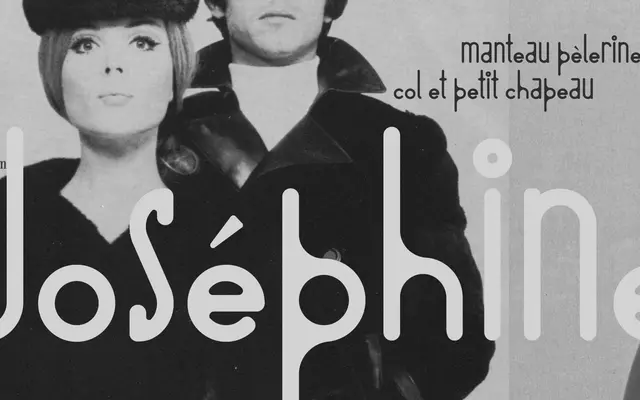
BD Barbeaux
Type Different · 2015
A condensed Art Nouveau display face aimed at fashion and lifestyle headlines, offered in a standard cut and a rounded Numérique variant.
BD Barbeaux is a condensed typeface with a chic, Art Nouveau character suited to fashion editorials and lifestyle publications. Two variants are available: the standard Regular and BD Barbeaux Numérique, which softens the design with rounded corners. Latin script support covers a broad range of Western European languages.
A condensed display typeface with Art Nouveau influences, designed for fashion headlines rather than extended text. The Numérique variant adds rounded corners, reinforcing its decorative display character.